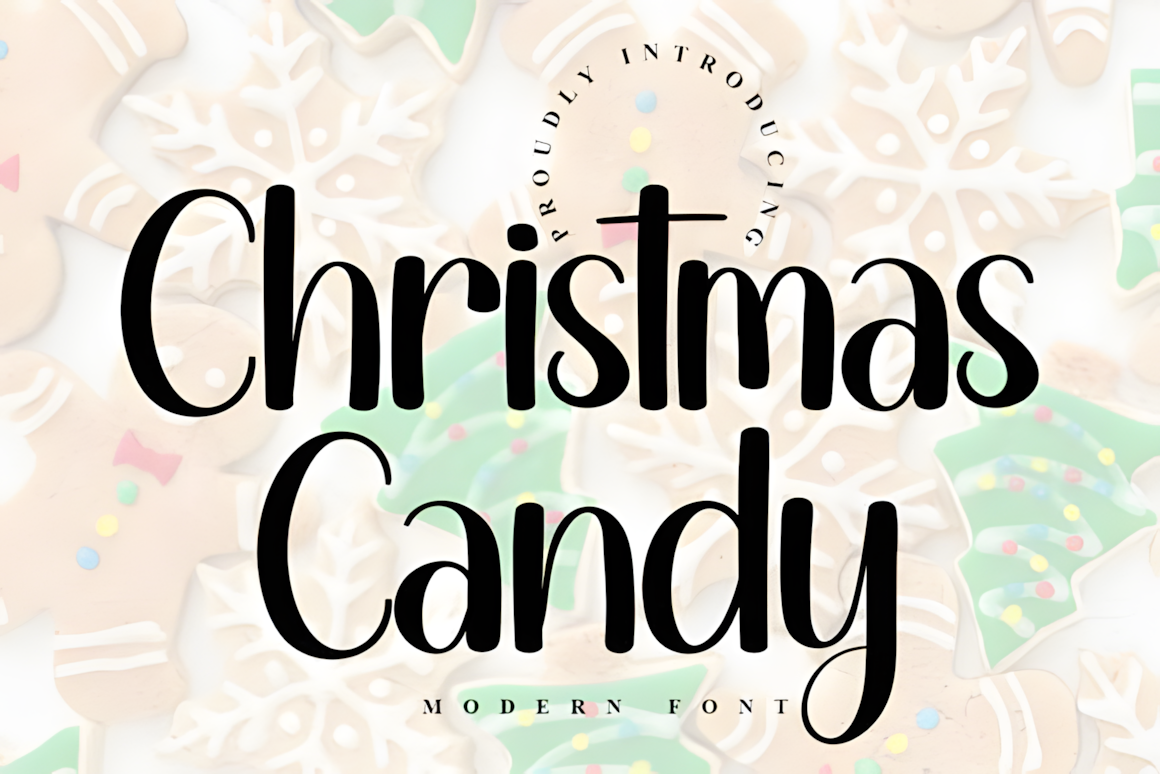
Christmas Candy Font
Christmas Candy is a gorgeous and bold handwritten font designed to make your creative projects stand out with style and personality. Its strong, confident, and dynamic letterforms are perfect for eye-catching headlines, logos, branding, holiday designs, product packaging, greeting cards, invitations, social media graphics, posters, and festive decorations. The font captures a warm, nostalgic feel while maintaining a modern handwritten charm, making it suitable for both seasonal and everyday projects. Whether you're a designer, crafter, or business owner, Christmas Candy adds bold character and lasting visual appeal to your work, helping every design look unique, memorable, and professionally crafted.